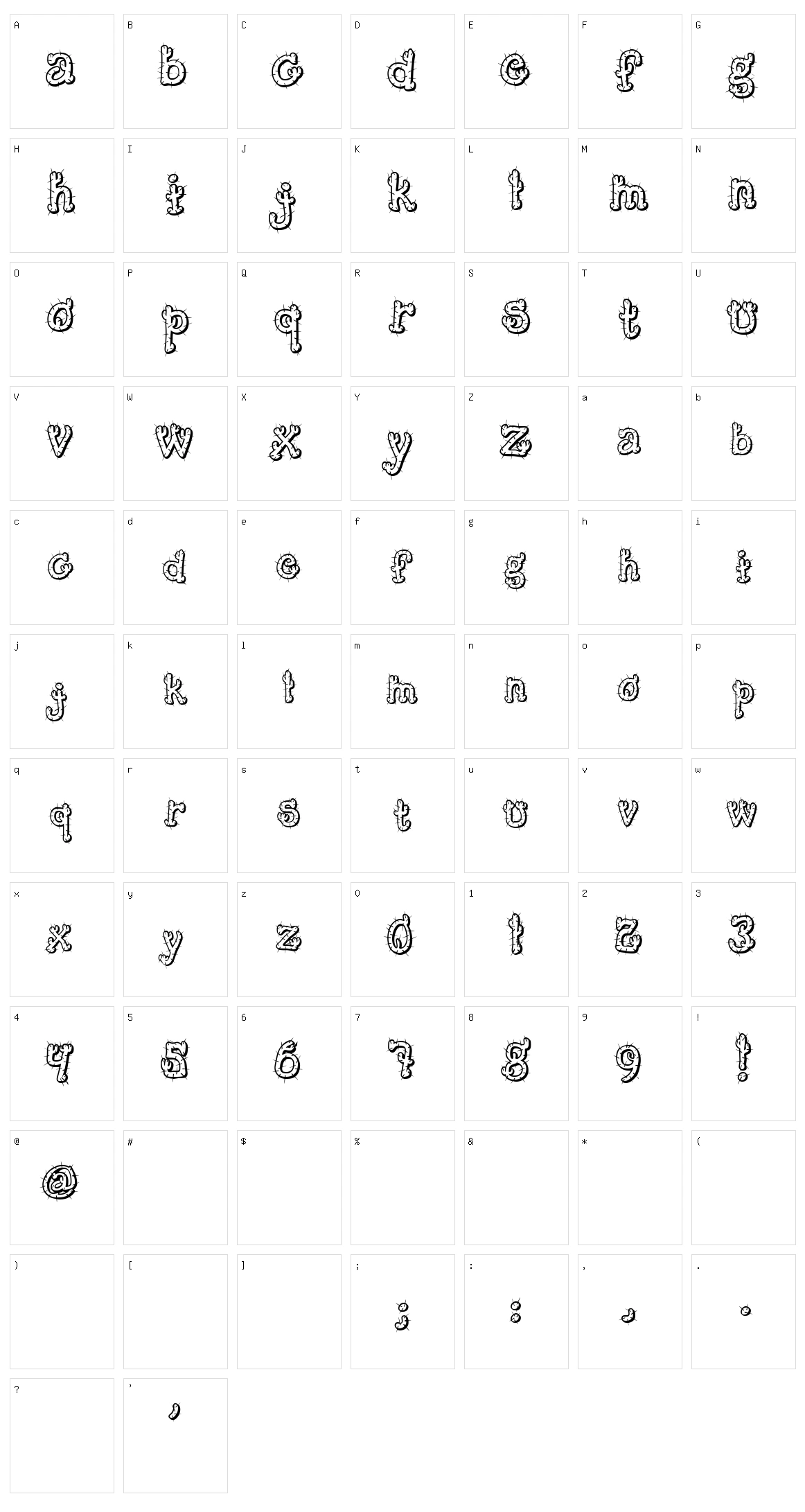
The free font Cactus Sandwich is carefully designed by FontMesa LLC, showcasing a thoughtful balance of creativity and usability and falls under the Mexican font style. When you download the ZIP file, it contains only 118.32 KB of font files, making it lightweight and quick to download. Please review the license details below to understand permitted usage and distribution rights. If license information is not available, we recommend using this font for personal projects only or contacting the author directly for commercial usage permissions.